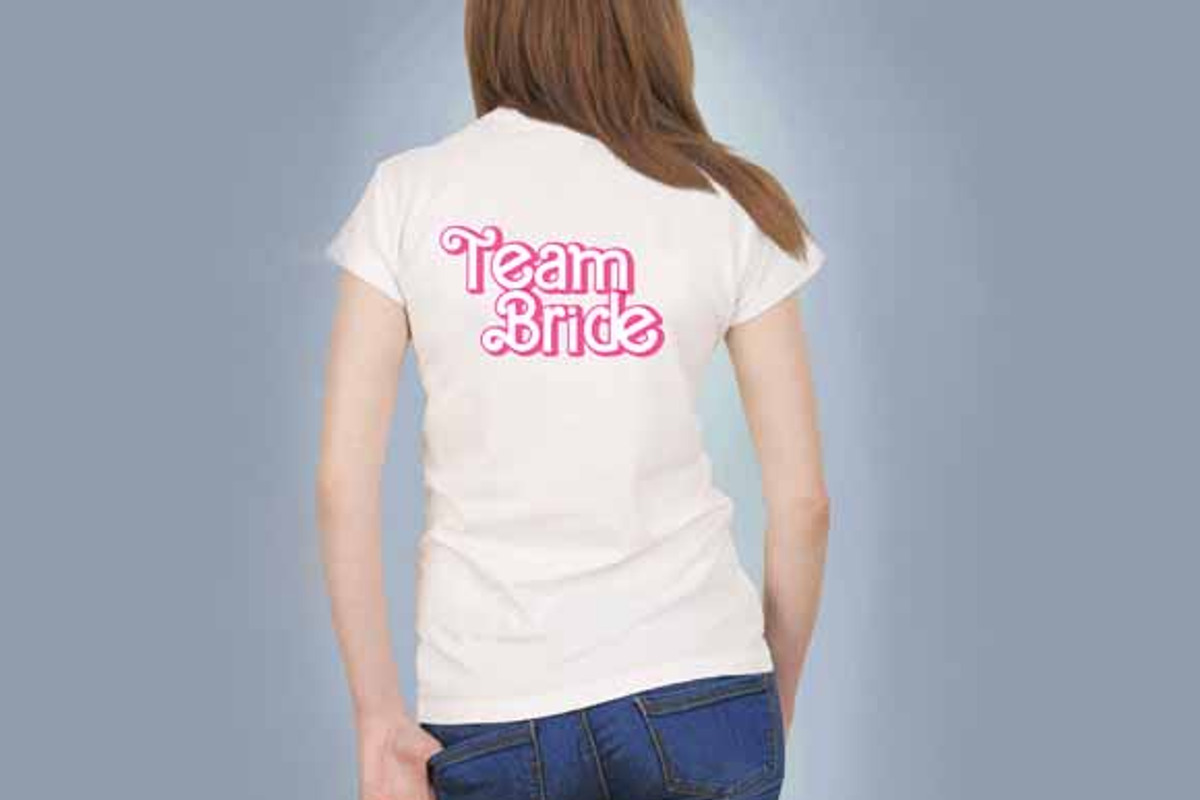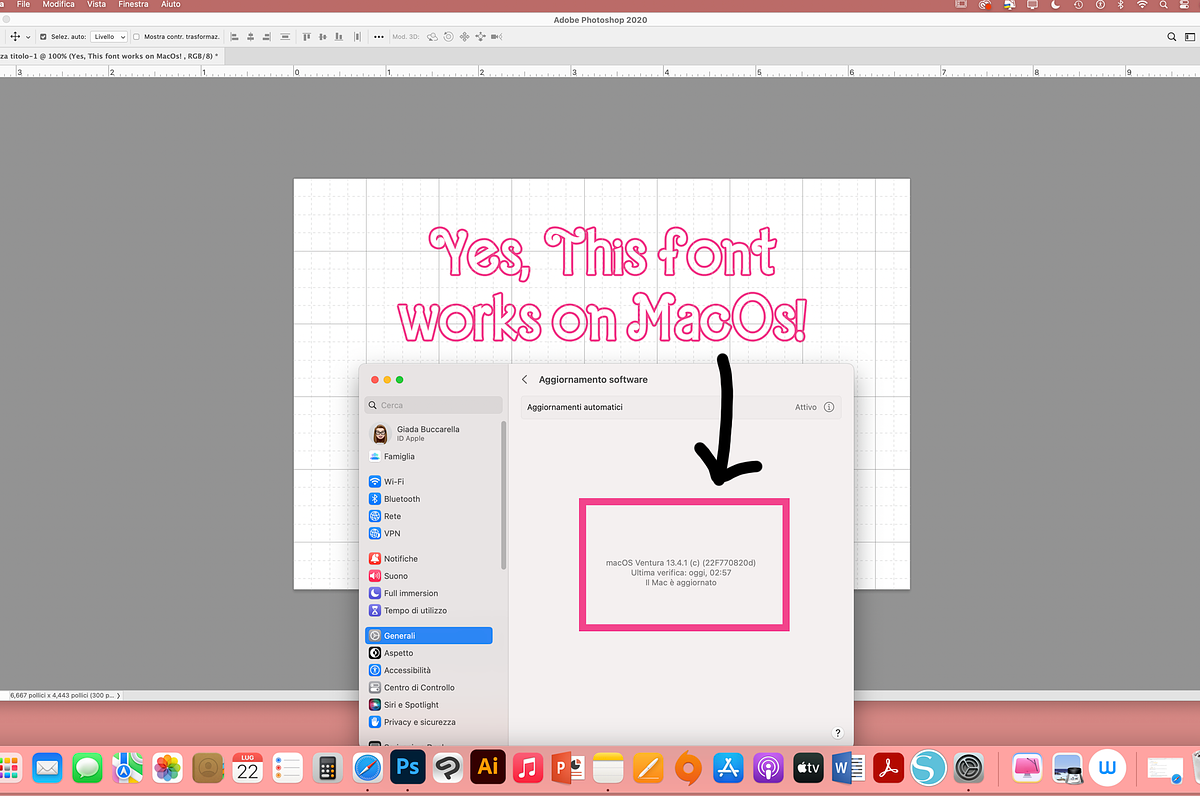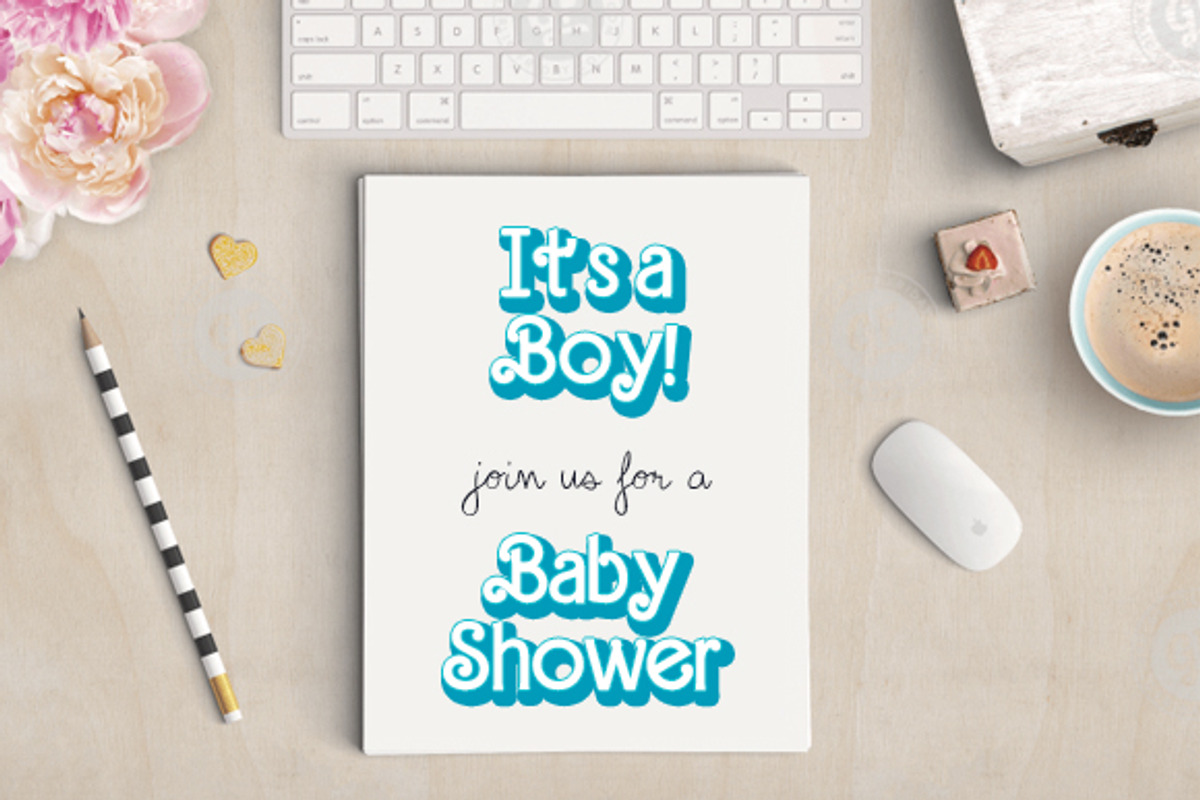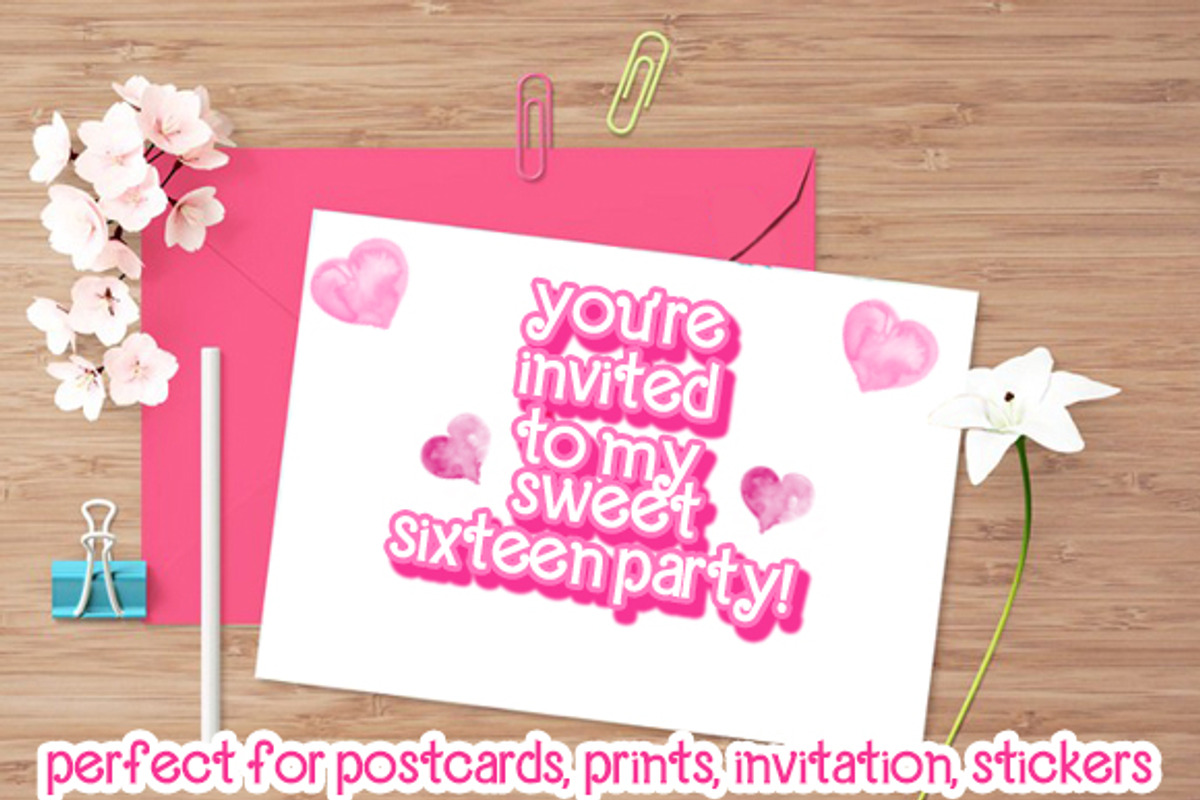
Absolute Blonde Typeface
Absolute Blonde Typeface by The GG Shop is a font selected for branding, posters, packaging, typography.
- ( does not contains numbers or glyphs or any kind of extra symbols or ornaments).
Why Absolute Blonde Typeface is worth a look
Absolute Blonde Typeface by The GG Shop fits naturally into Branding, posters, packaging, typography.